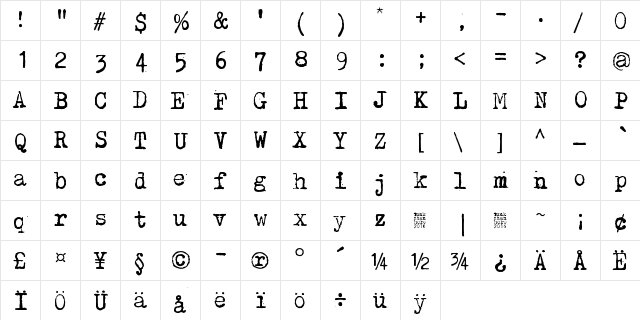
Why do we blink so frequently? Dark
Design Context for Why do we blink so frequently? Typeface
Why do we blink so frequently? takes a measured approach to typography — its balanced proportions and neutral character make it a reliable workhorse for both digital and print work.
Pro Tip: Use Why do we blink so frequently? in both headline and body roles to test its range before committing to a single application.